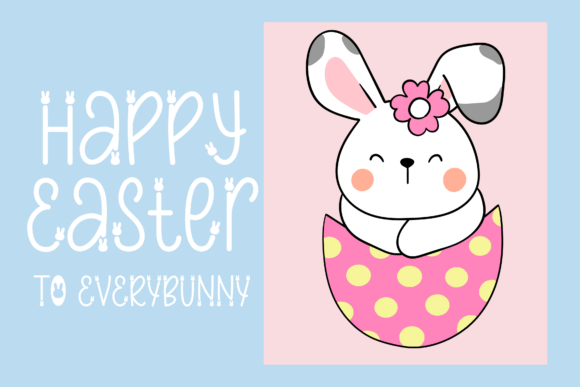
Introduction to Hoppytale Font
Have you ever found yourself staring at a blank design canvas, eager to bring your creative vision to life? The blank page can be daunting, but with the right tools, it’s a chance to unleash your imagination. That’s where the Hoppytale Font comes in – a delightful, bunny-filled design resource that’s sure to add a touch of whimsy to your projects.
As a designer, you understand the importance of choosing the perfect font to set the tone for your creative project. Whether you’re working on a festive Easter campaign or a playful social media post, the Hoppytale Font offers a high-quality, free download that’s perfect for adding a touch of personality to your designs.
With its transparent background and adorable bunny illustrations, the Hoppytale Font is an ideal choice for designers looking to add a fresh, lighthearted vibe to their work. So why settle for a generic font when you can hop into the Easter spirit with Hoppytale Font?
Key Features of Hoppytale Font
- Unique Hand-Drawn Design: The Hoppytale Font features a distinctive hand-drawn style, perfect for adding a touch of whimsy to your creative project.
- Transparent Background: The font includes a transparent background, allowing for seamless integration with any design element and giving you complete control over the background.
- Large Character Set: The font includes a wide range of characters, including uppercase and lowercase letters, numbers, and punctuation marks, making it suitable for a variety of design applications.
Honest Review: Hoppytale Font
I recently had the chance to work with the Hoppytale Font on a creative project and I’m excited to share my honest review with you. As a designer, I’m always on the lookout for high-quality design resources that can elevate my work and help me achieve my vision.
One of the things that stood out to me about the Hoppytale Font is its versatility. It’s perfect for a wide range of creative projects, from branding and marketing materials to digital art and typography.
Here are some of the things that work well with the Hoppytale Font:
- ✨ Unique and playful design style that adds a touch of whimsy to any project
- ✨ High-quality design that’s perfect for print and digital applications
- ⚠️ Limited font sizes and weights available, which may limit its use in certain situations
- ⚠️ Not suitable for use on a transparent background, as the font may not show up well
Overall, I was impressed with the Hoppytale Font and would definitely consider using it again on a future project. With a little creativity and planning, it can be a great addition to any design portfolio.
Tips for Getting the Most Out of Hoppytale Font
Experiment with different font sizes and colors to create a unique design. Use the font in combination with other design elements, such as graphics and images, to create a visually appealing design resource. Consider using a transparent background to make your design stand out.
The Hoppytale Font is a versatile design resource that can be used for a variety of creative projects, including logos, posters, and social media graphics. It’s also a great choice for designing a website or blog, where a high-quality font can make a big impact.